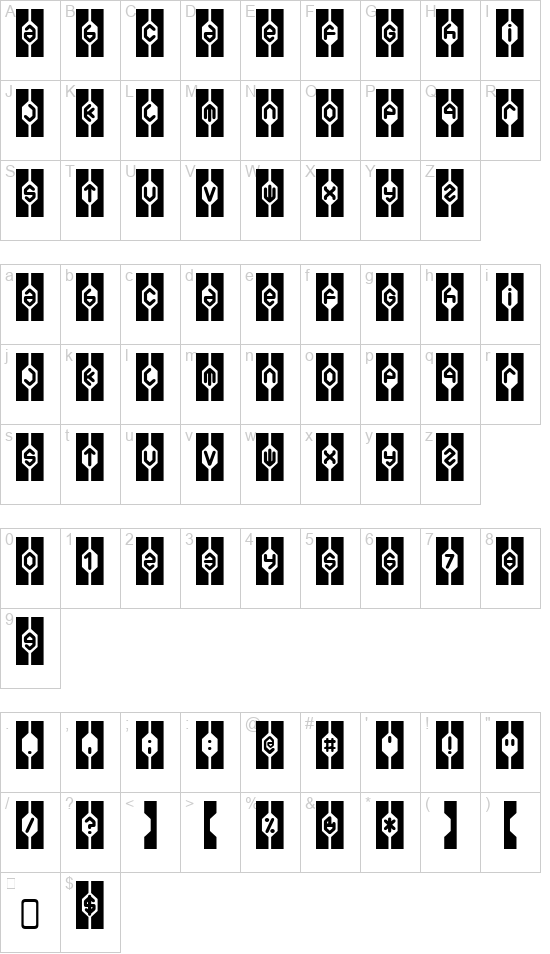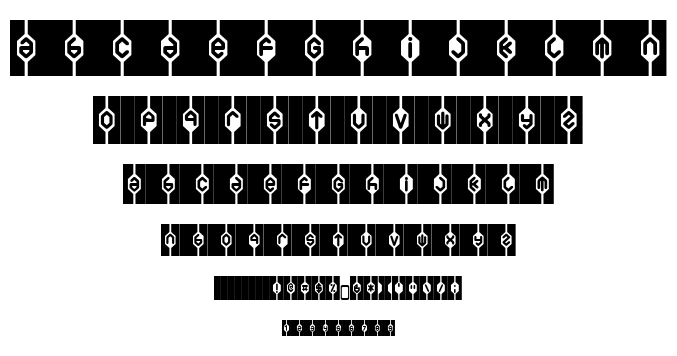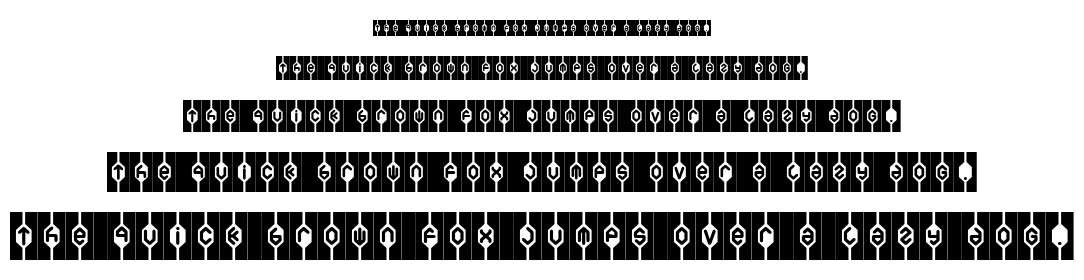
Welfare Brat was designed to make the reader think about bulldozers and hamburgers. Don’t forget to read the files inside the zip for details. Updated in 2012.